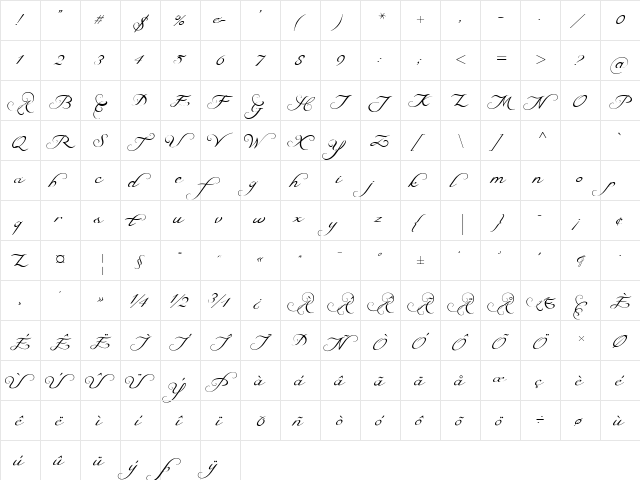
Natalya Regular
Design Context for Natalya Typeface
Natalya is a composed and adaptable typeface that performs quietly and consistently across a wide range of design contexts.